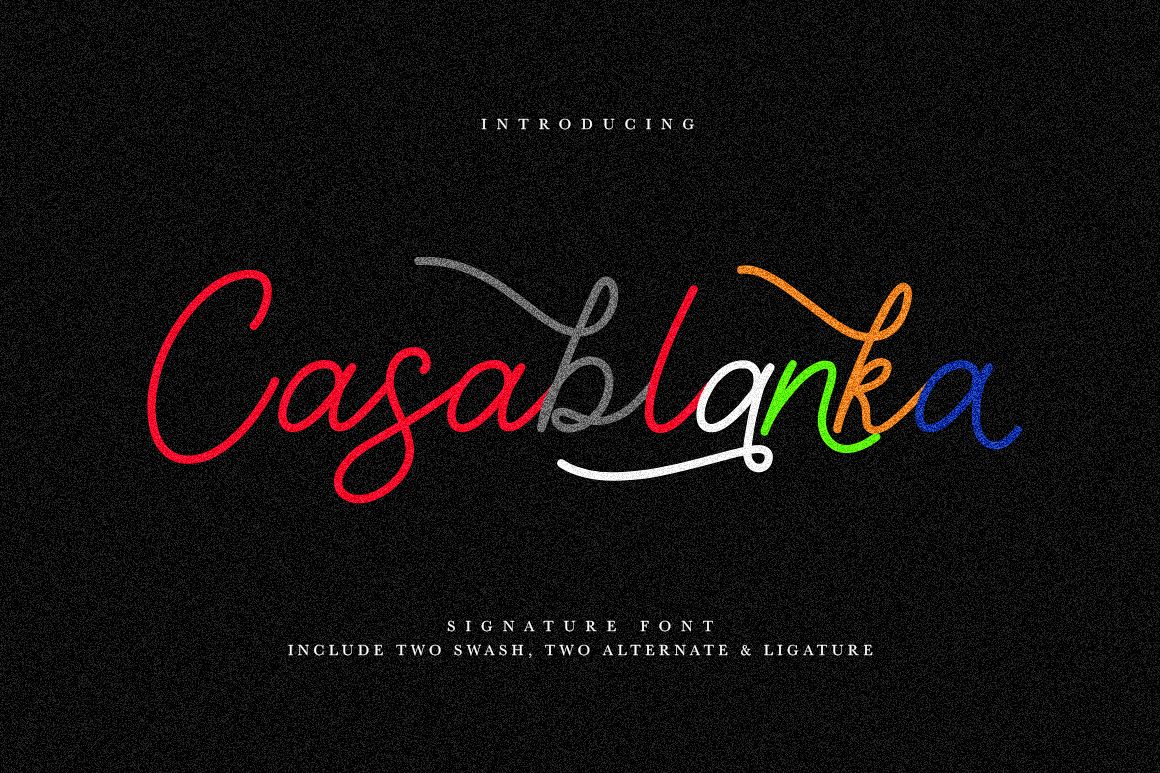
Give your designs an authentic handcrafted feel. "Casablanka Script" is perfectly suited to signature, stationery, logo, typography quotes, magazine or book cover, website header, clothing, branding, packaging design and more. Included Stylistic, Swash & Ligatures.Use the alternates in Adobe Illustrator and Adobe Photoshop, this is the quick tutorial: